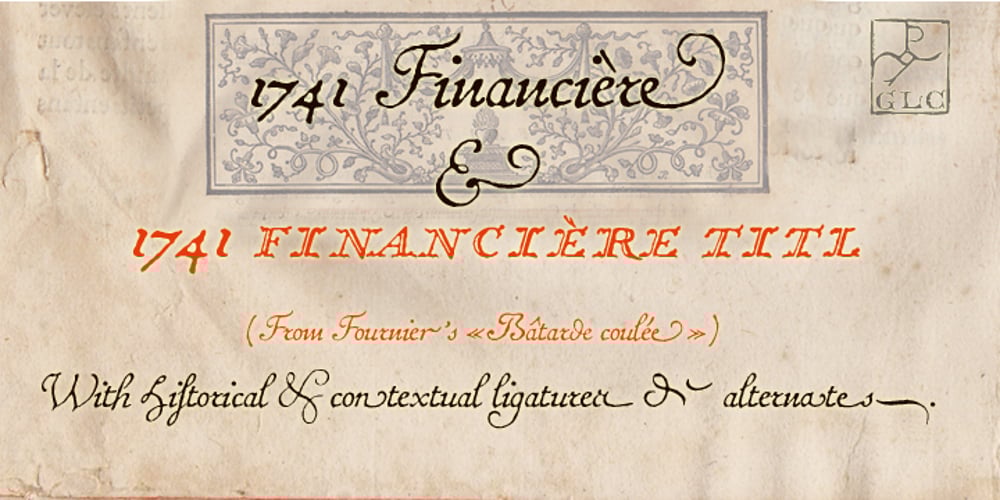
1741 Financiere Font Family was designed by published by GLC. 1741 Financiere contains 2 styles and family package options. This family was inspired by the Fournier’s font named “Financière”. It is a looking like manual font, carved in 1741 by Pierre Simon Fournier (le jeune) and published in his Manuel Typographique… in Paris (1764-1766). We offer 1741 Financière” as a rich complement to our 1786 GLC Fournier. The font is enriched by numerous ligatures and OTF specifications to make it attractive and offer a lot of various typographic possibilities in a text.